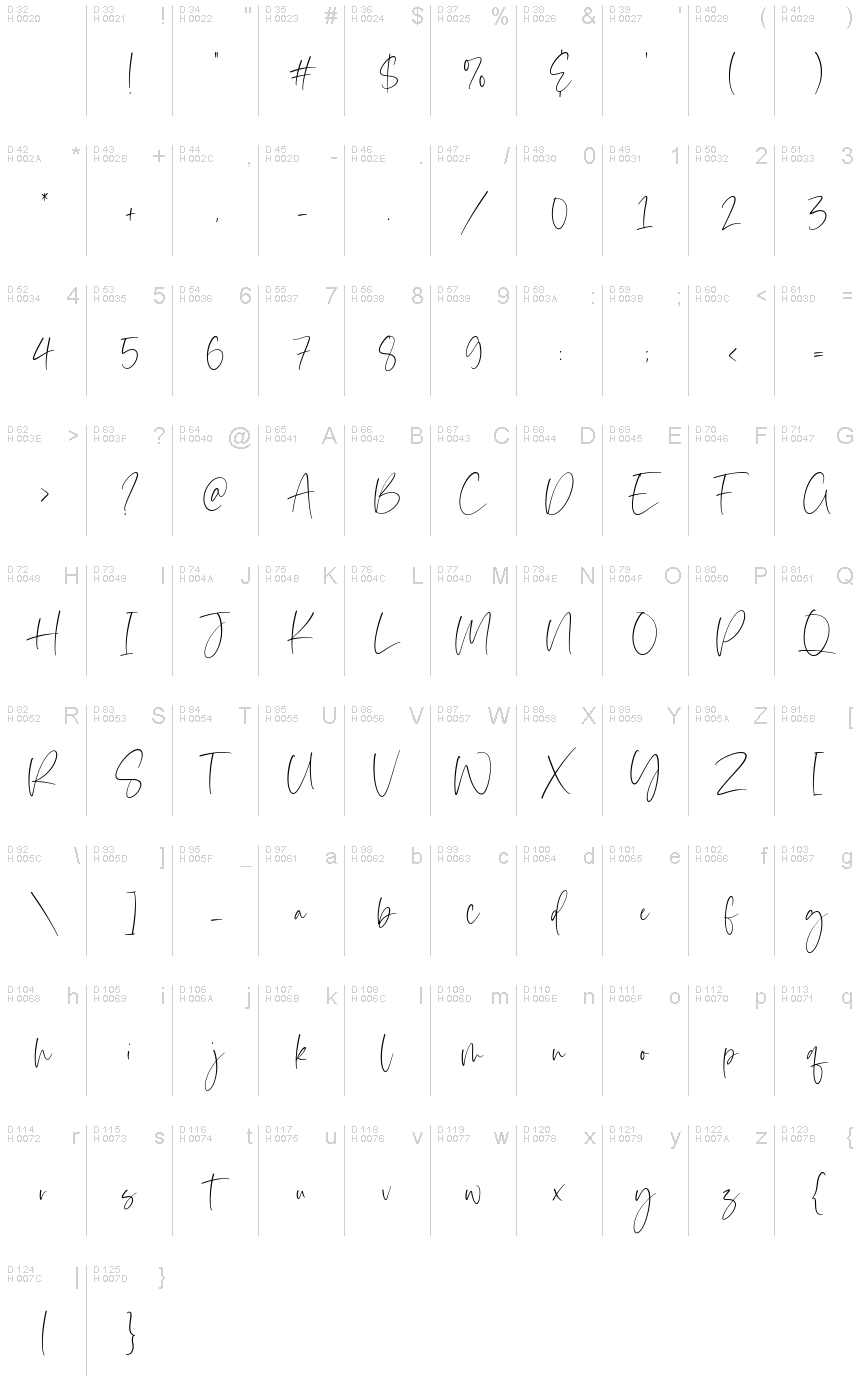
Southwood
Southwood emerges as a creation of Timur Type, embodying the spontaneous flow and personal touch of handwritten script. Its gentle strokes suggest a light and airy feel, reminiscent of a swift brush dipped in ink, gliding effortlessly across the page. The font's expressive swashes and elegant curves invoke a sense of individuality and flair that can elevate any design.
This font's distinct charm makes it an ideal choice for branding projects that require a signature look, bespoke wedding invitations that seek to capture the essence of intimacy, or any artistic endeavor aiming for an organic, human touch. Southwood's aesthetic appeal ensures it stands out in creative compositions where personality and style are paramount.